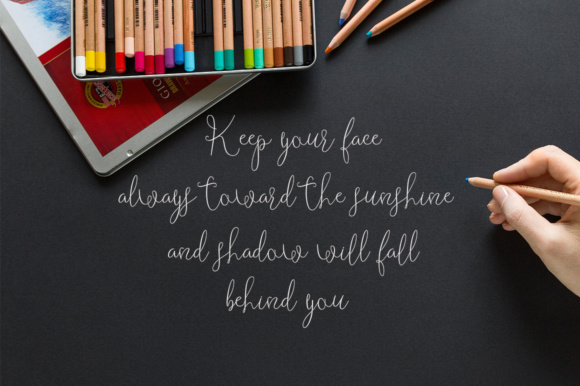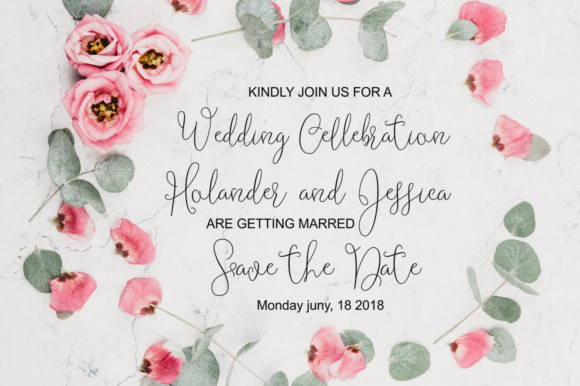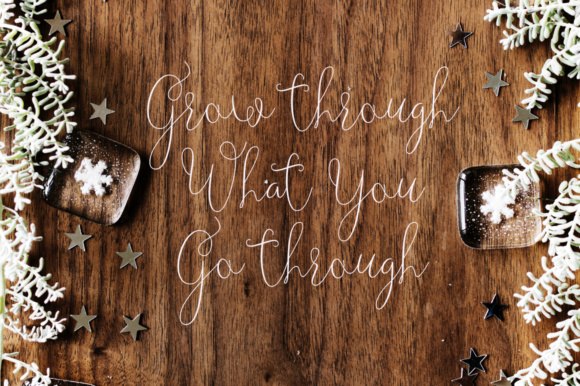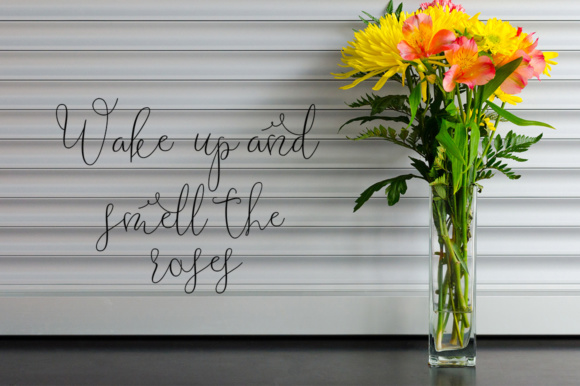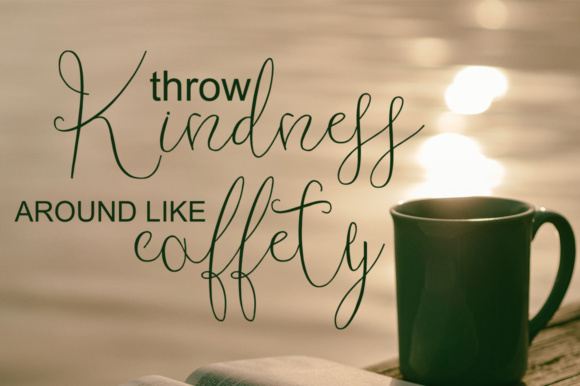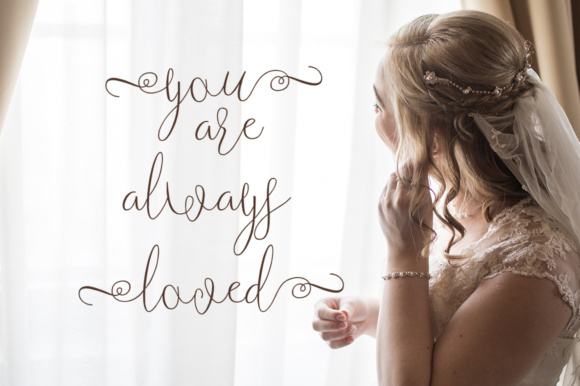
The Gramedia Font: A Timeless Beauty for Your Designs
I’ll never forget the time I was working on a project for a client who wanted a font that exuded classic love and elegance. I scoured the internet, tried out countless fonts, but nothing seemed to fit the bill. That was until I stumbled upon the Gramedia font. It’s a beautiful handwritten font that has an elegant feel, giving my design a decorative impression of classic love. In this article, I’ll share my experience with the Gramedia font, its features, and how to use it on different platforms.
A Personal Review of Gramedia Font
What I Love About Gramedia Font
- ✨ Elegant and classic feel that adds a touch of sophistication to any design
- 💕 Beautifully crafted letters with a personal touch
- 🎨 Versatile and can be used for a variety of design projects, from wedding invitations to branding
While I absolutely love the Gramedia font, there are a few quirks to be aware of:
- 🤔 The font can be a bit overused, so make sure to use it in moderation
- ⚠️ Some letters may not work well with certain OpenType features, so it’s essential to test the font before finalizing your design
The Story Behind Gramedia Font
The Gramedia font was designed with love and care by a talented type designer who wanted to create a font that would evoke classic romance and elegance. The designer’s inspiration came from traditional calligraphy and handwriting, with a focus on creating a font that would be both beautiful and legible.
Q: What is the Gramedia font best used for?
A: The Gramedia font is best used for designs that require a classic and elegant feel, such as wedding invitations, branding, and packaging.
Q: Is the Gramedia font suitable for body text?
A: While the Gramedia font is highly legible, it’s best used for headings and titles. For body text, a more traditional font may be more suitable.
Q: Is the Gramedia font available in different languages?
A: The Gramedia font may not be available in all languages, but it does support a range of languages, including English, French, and Spanish.